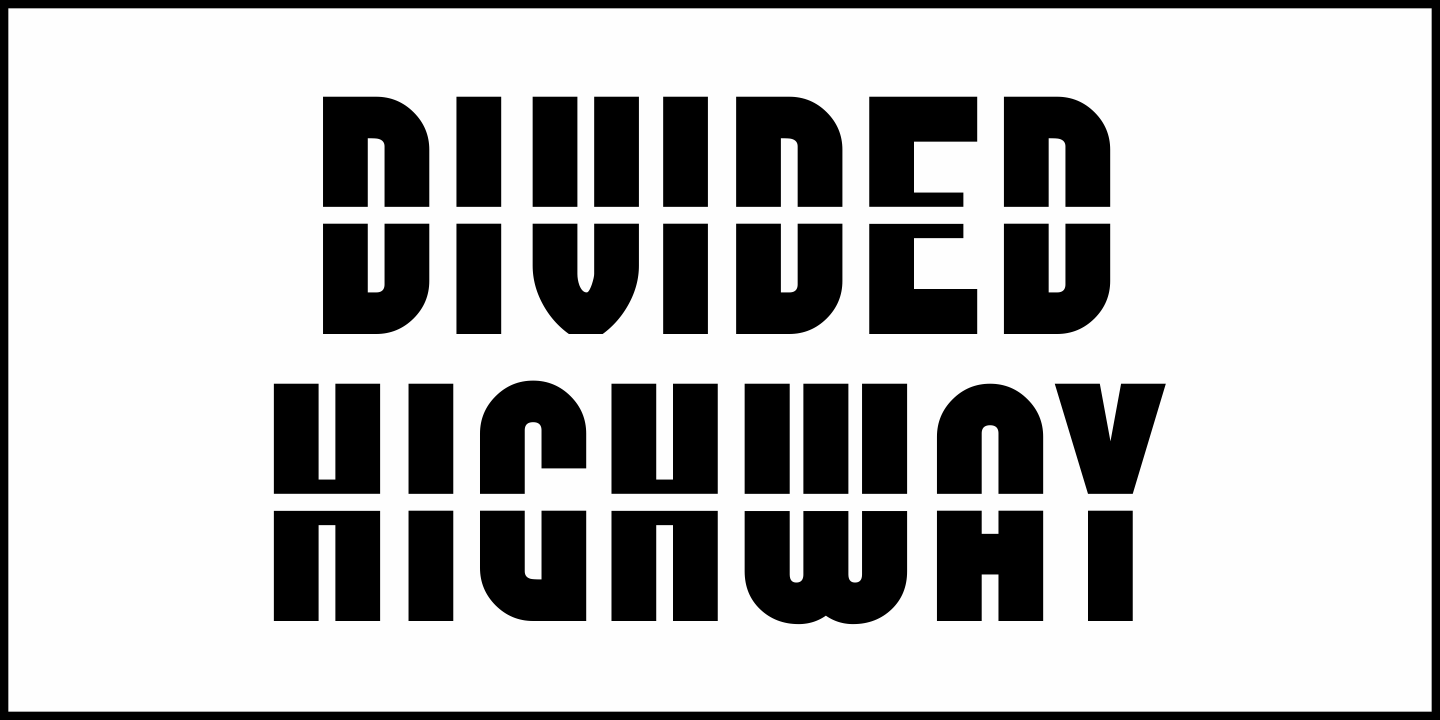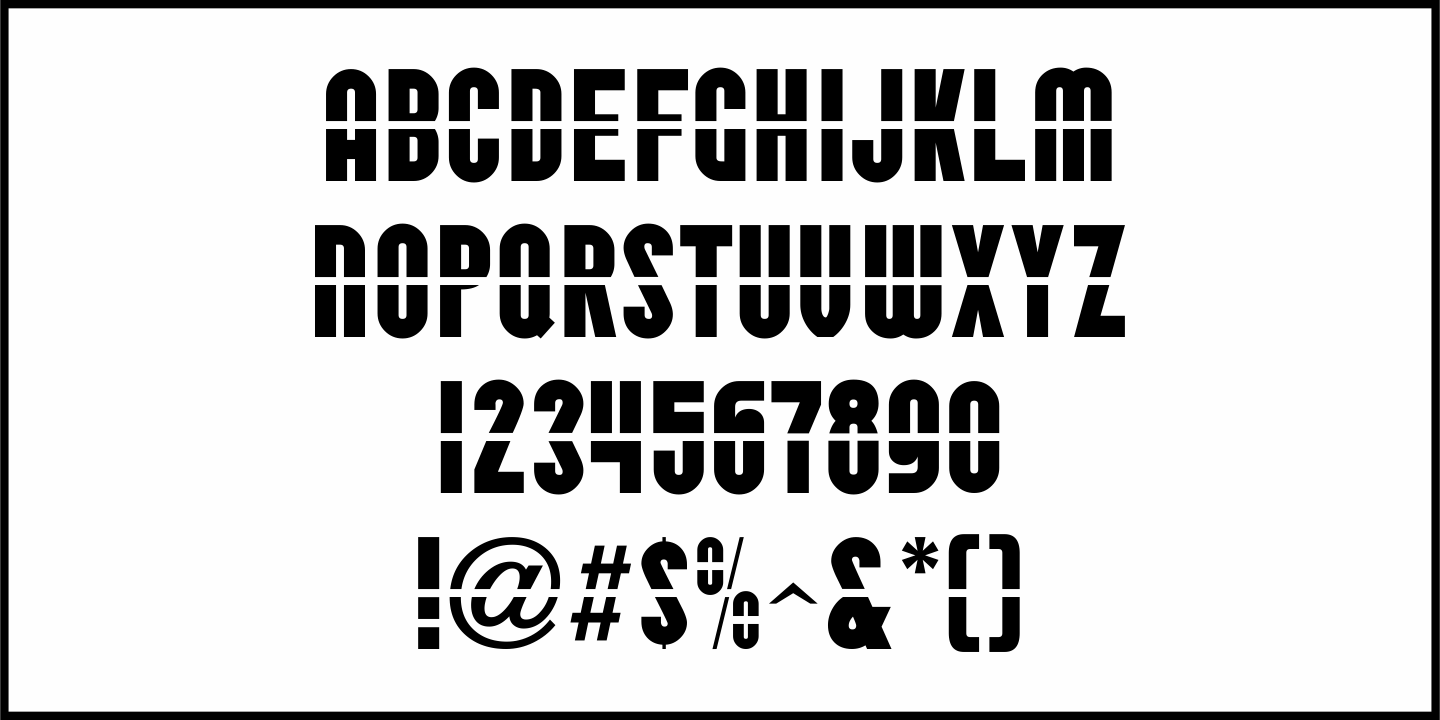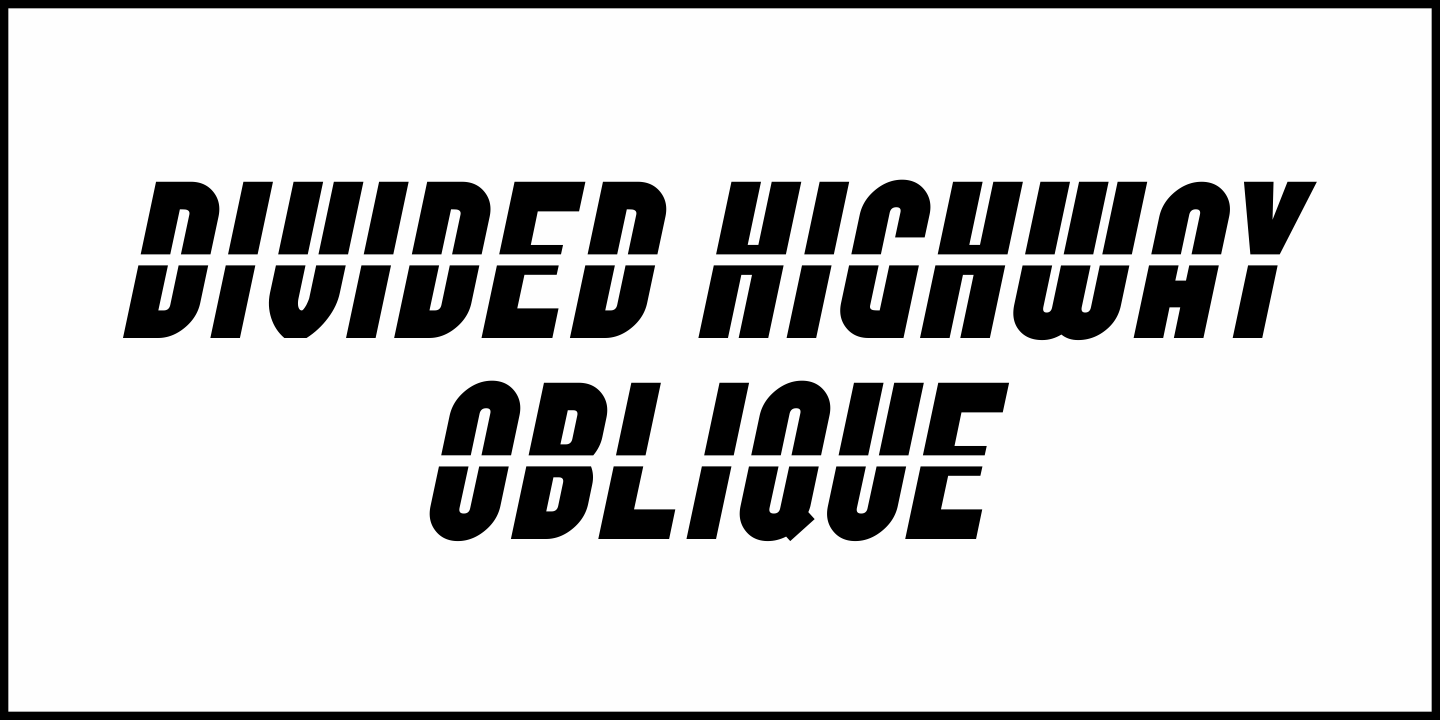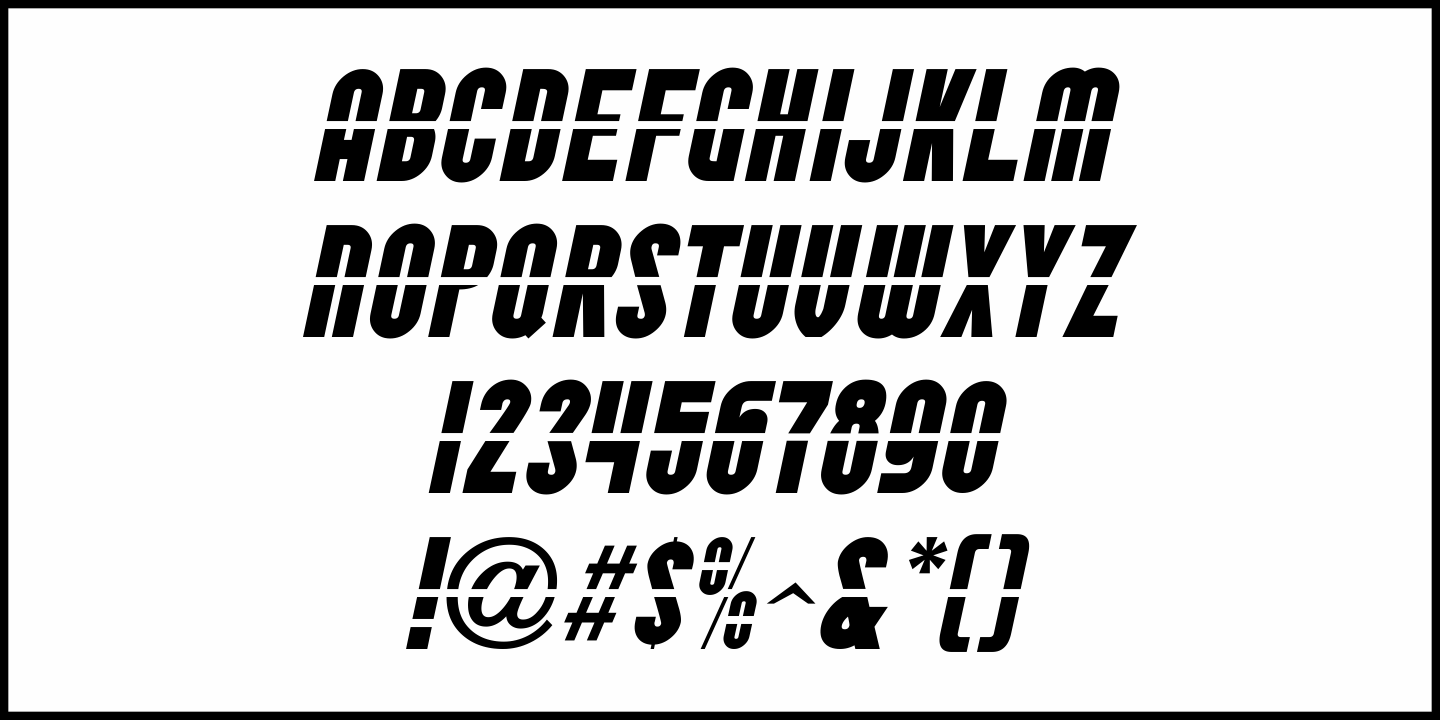
Divided Highway
The Narsinh Series (from the 1940 Gujarati Type Foundry of Bombay, India) is a modular metal font comprised of 32 basic shape pieces which would be assembled into any configuration to form various letters and numbers.
Examples of the alphabet and numerals were set in an Art Deco, condensed sans serif and were the basis for this type revival.
Strongly resembling a stencil design, the typeface was named after the revered 15th-century poet-saint of Gujarat, India Narsinh Mehta, and the foundry itself gets its name from the language and script of Gujarati [spoken by the Indo-Aryan residents of the Indian state of Gujarat].
Divided Highway JNL is the digital version of this design, and is available in both regular and oblique versions.